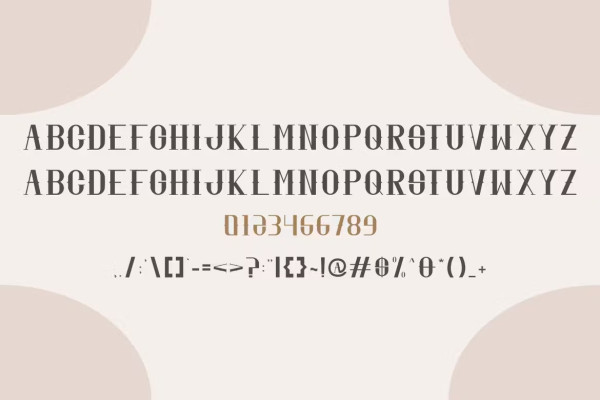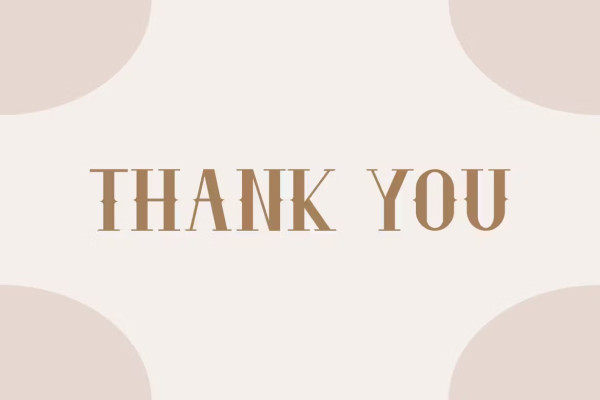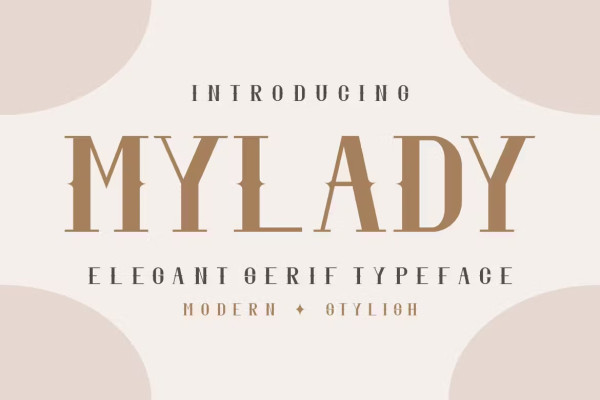
Mylady Font
Mylady Font is a modern and elegant serif font. Mylady is well-suited for advertising, branding, logotypes, packaging, titles, headlines and editorial design.
Mylady is perfect for many different projects such as logos & branding, invitation, stationery, wedding designs, social media posts, advertisements, printed quotes, product packaging, product designs, label, photography, watermark, special events or anything.